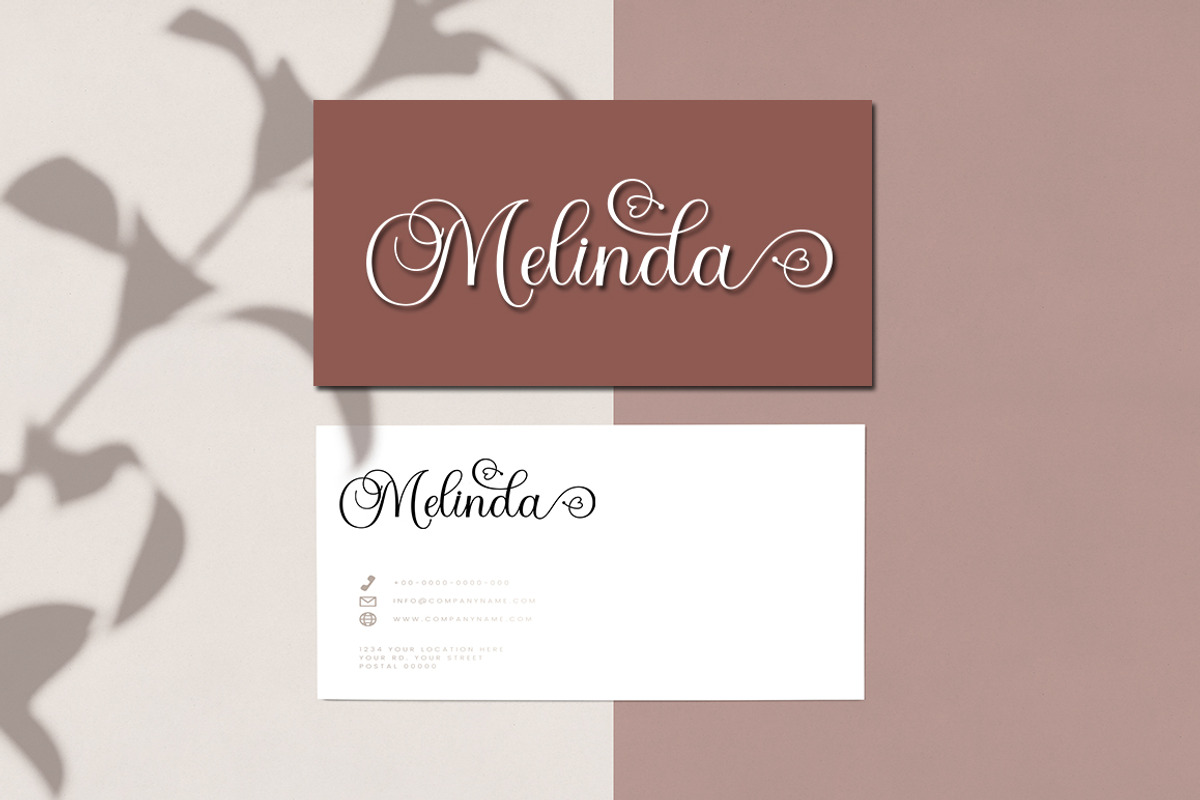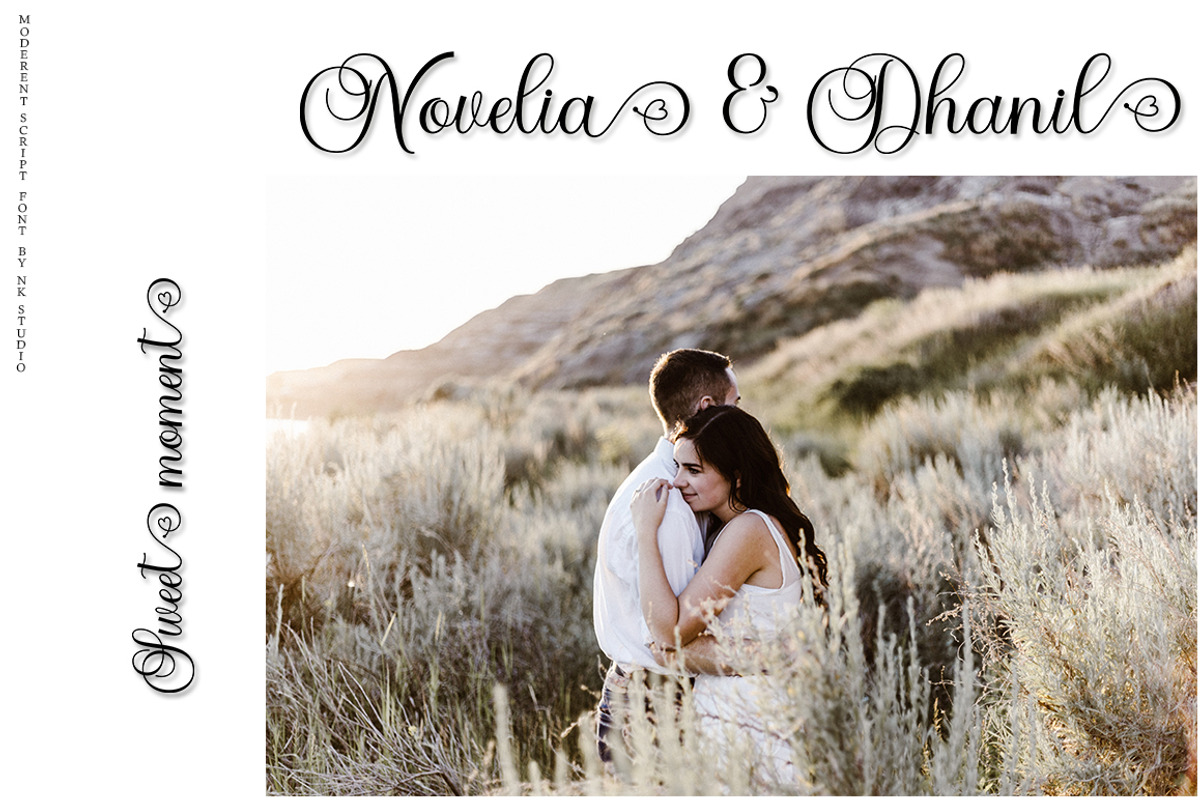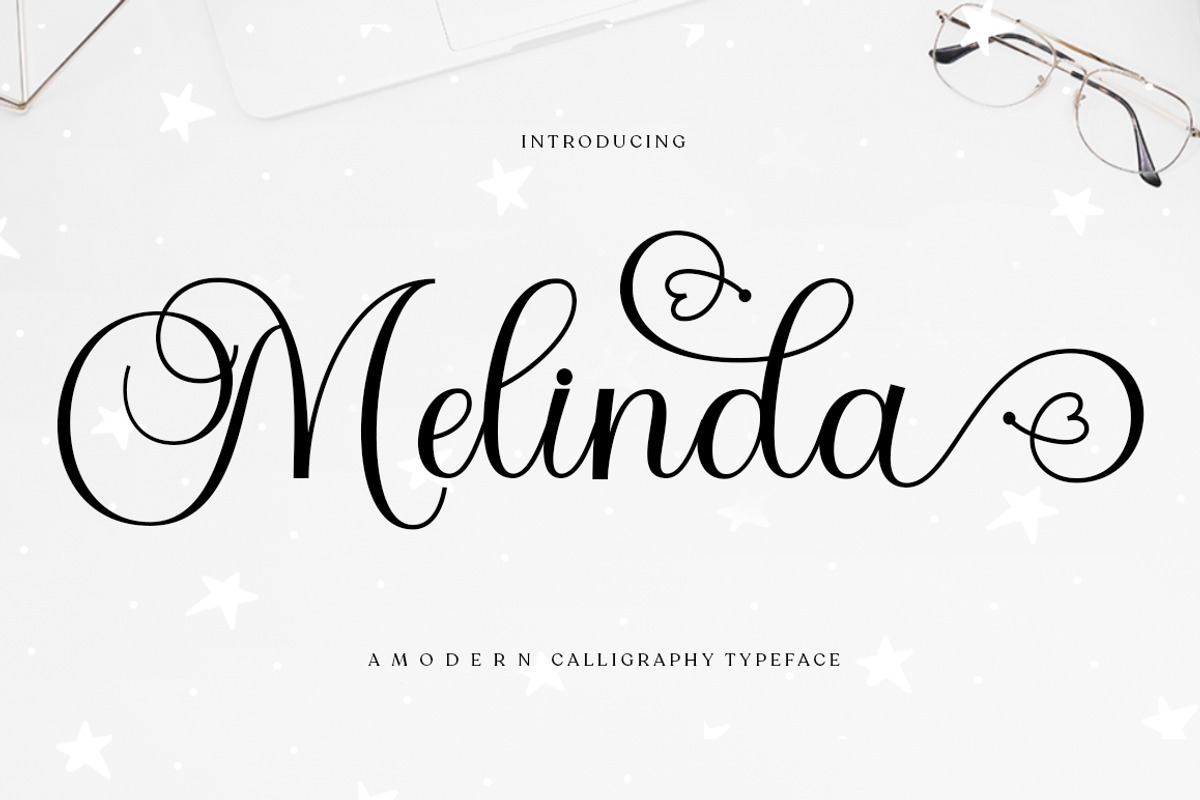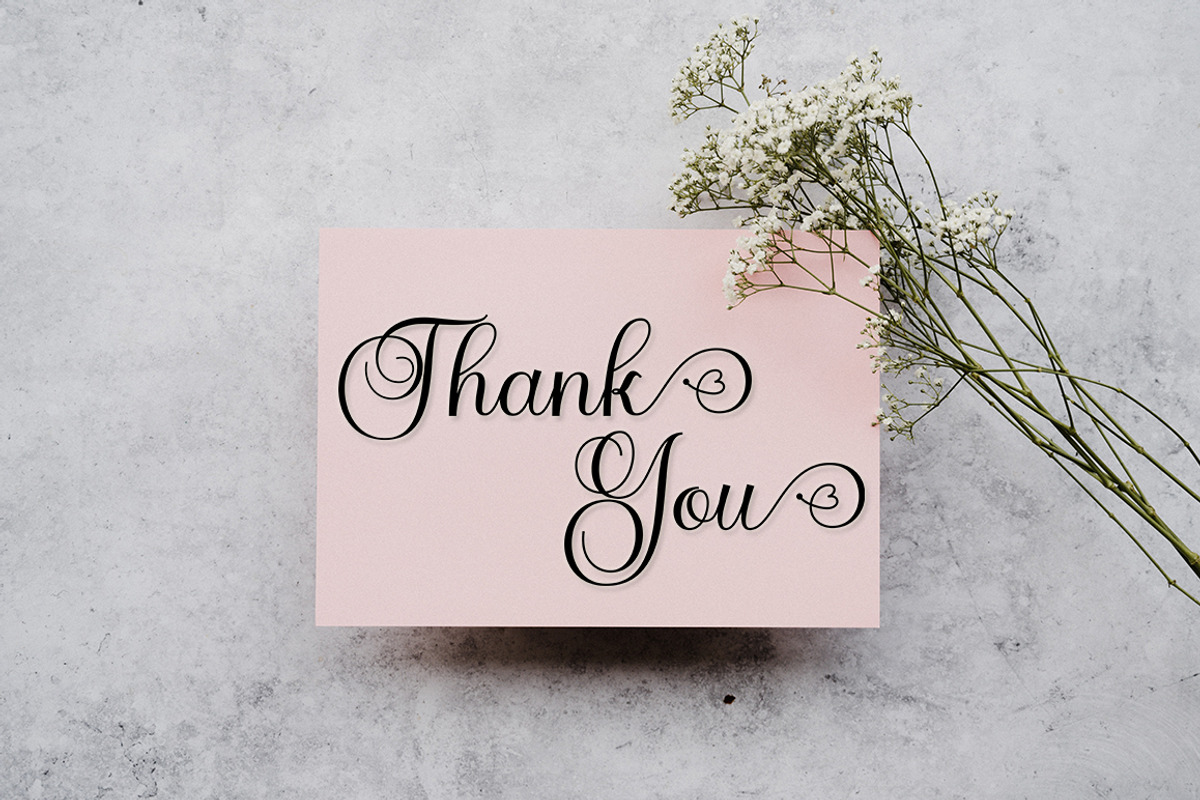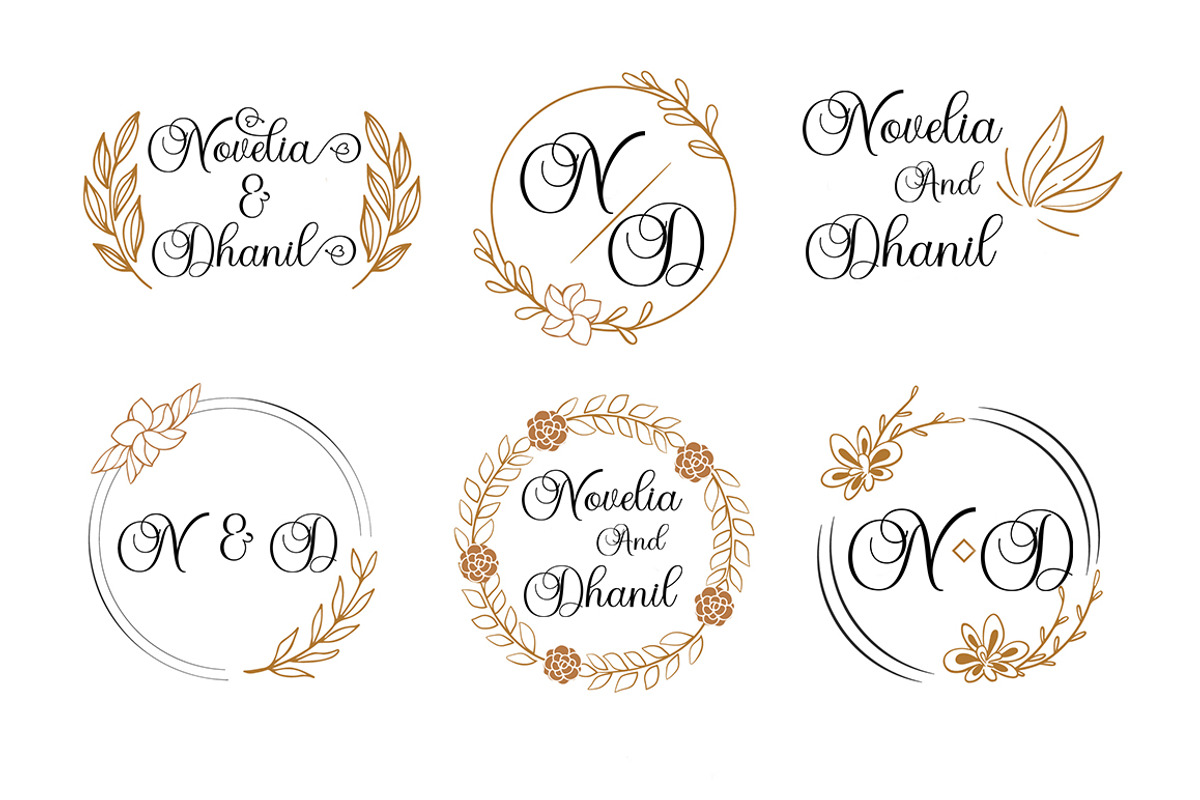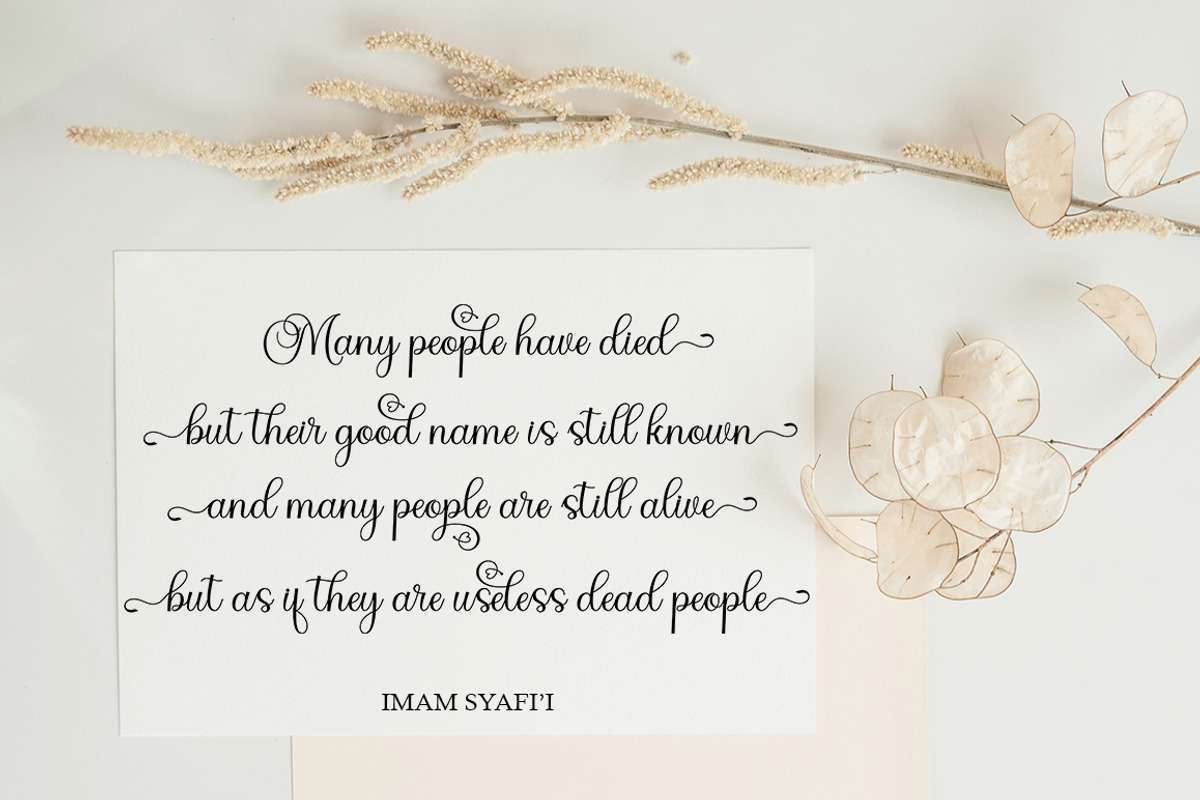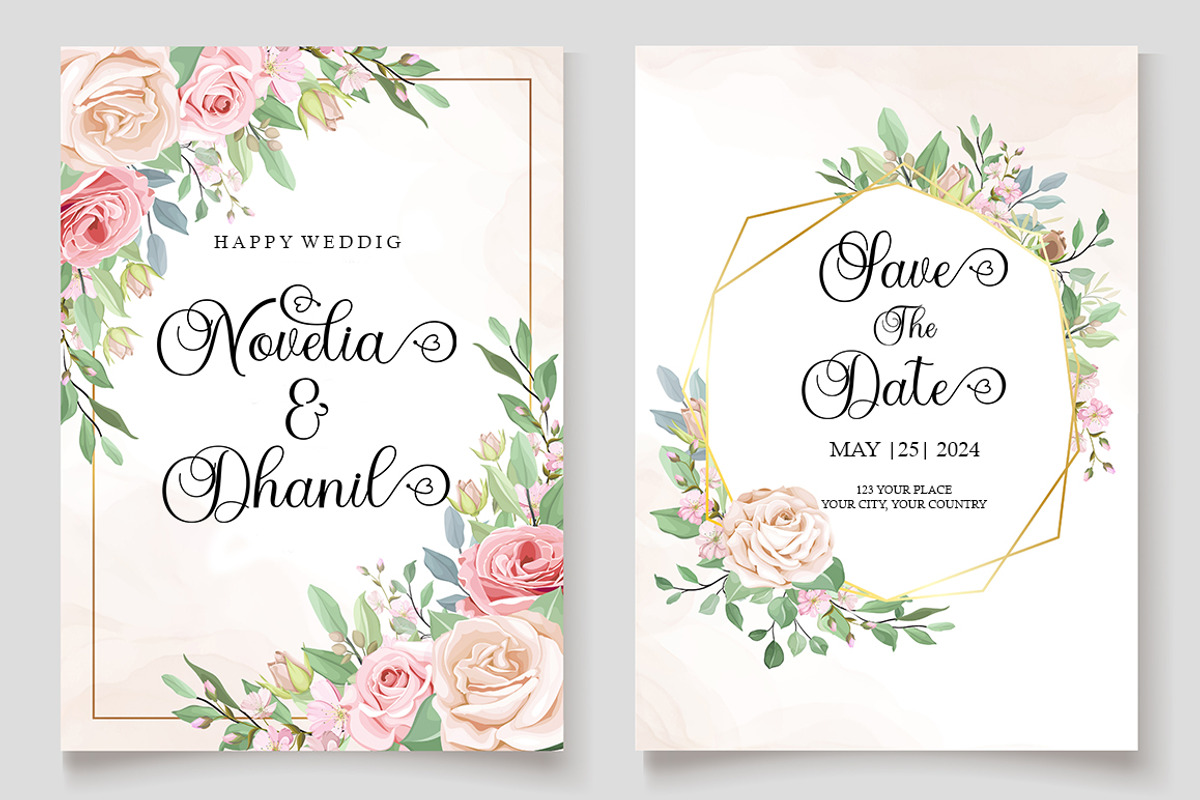
Melinda
Melinda Script Calligraphy Font is a modern typeface, each letter has been carefully crafted to make your text look beautiful. With a modern script style, this font will be suitable for a variety of projects, for example: weddings, invitations, greeting cards, posters, business cards, quotes, blog headers, branding, logos, fashion, clothing, letters, stationery, etc. Sadhira Manuscript Calligraphy fonts include alternate glyphs and beautiful swirls in fonts including style sets, Ligatures, etc.